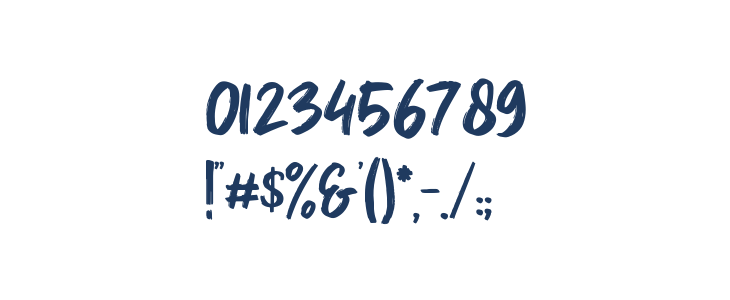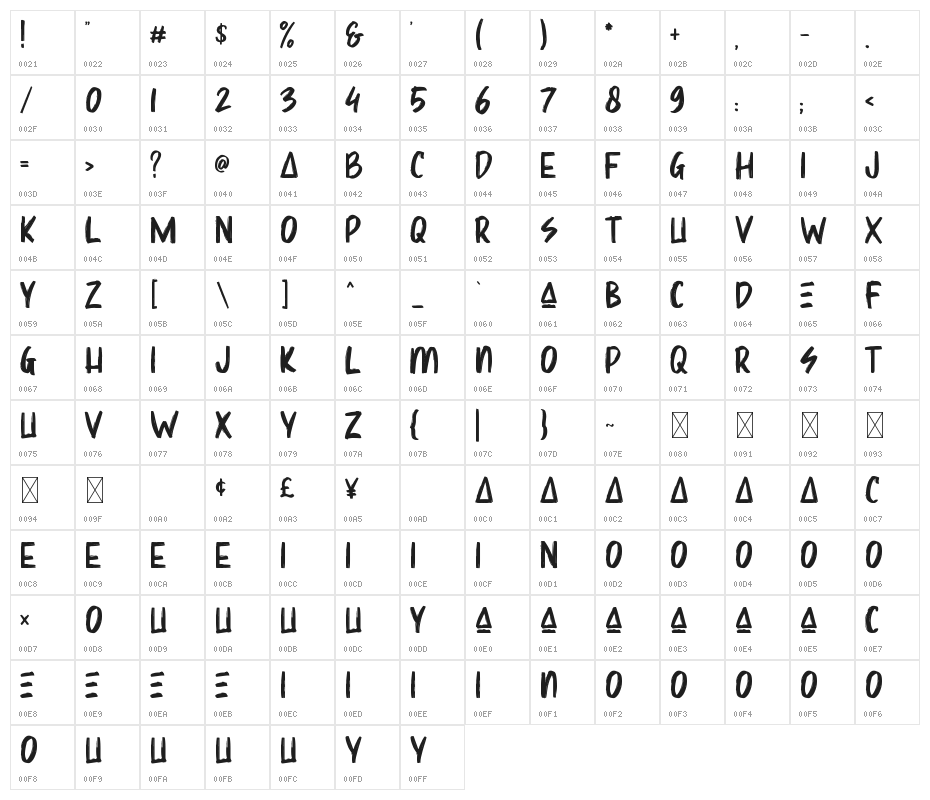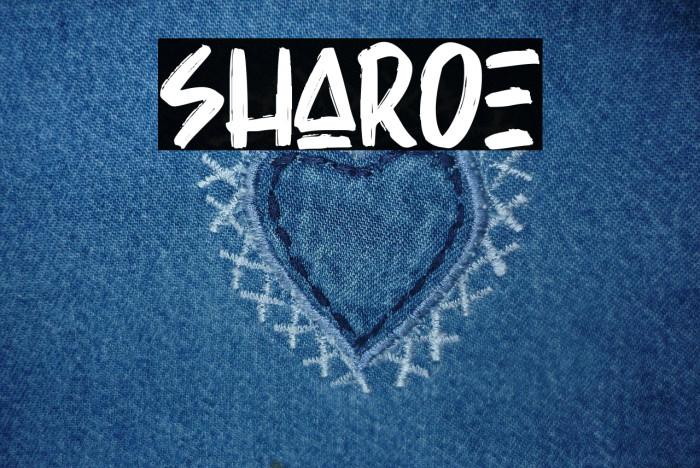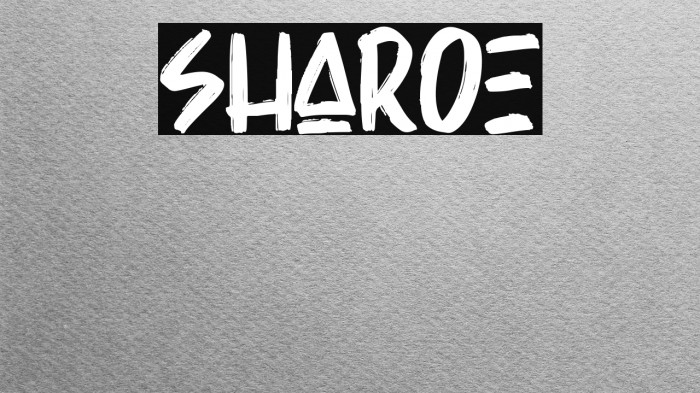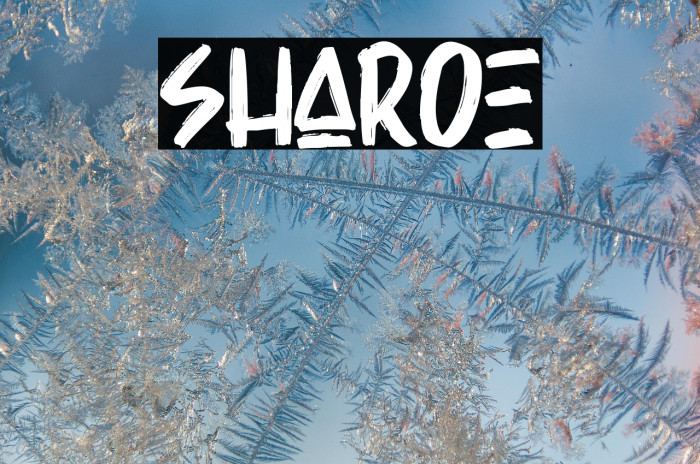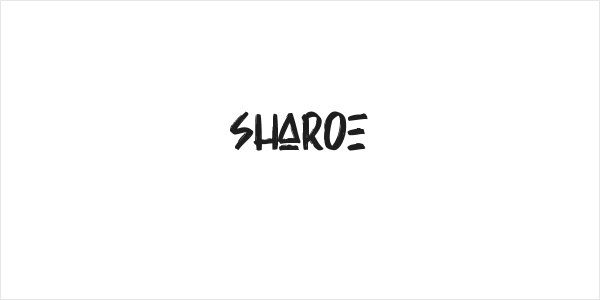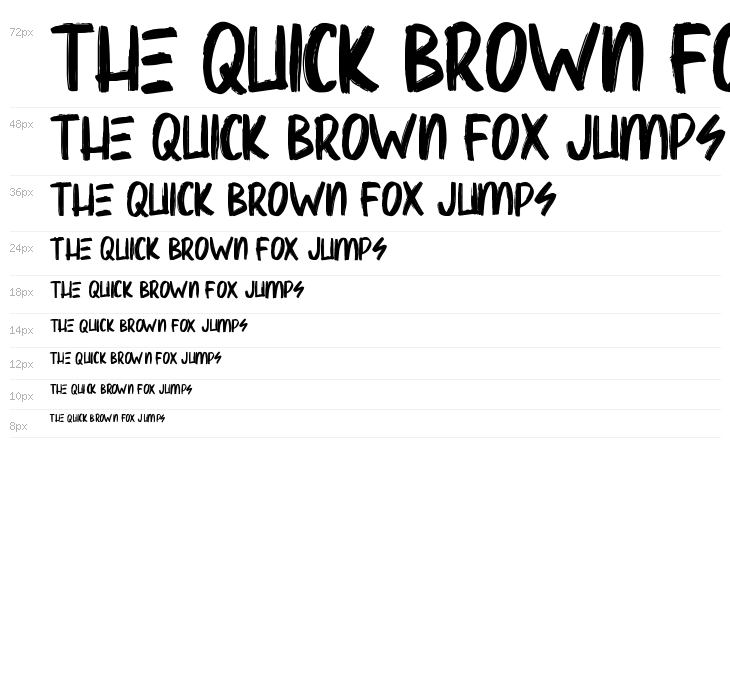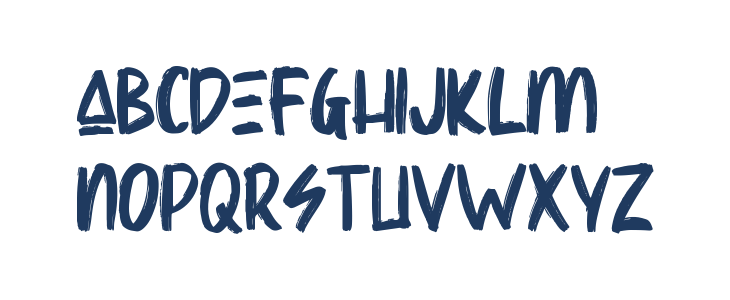
Sharoe Font
Sharoe Description
This font features a bold, expressive style with a hand-drawn appearance. The characters are slightly irregular, adding a dynamic and energetic feel. The uppercase letters are prominent and eye-catching, while the lowercase letters maintain a consistent flow. Numbers and special characters are crafted with the same bold strokes, ensuring uniformity across the font. The overall look is modern and artistic, making it suitable for creative projects that require a personal touch.
| Overall Style | Modern, Artistic |
| Proposed Projects | Ideal for posters, album covers, branding, and any project that requires a bold, artistic statement. |